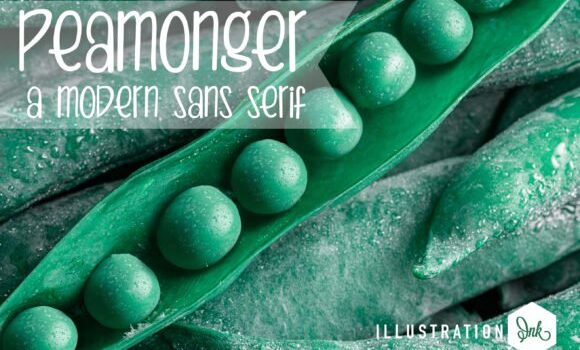
Peamonger Font – Free Download Introduction to Peamonger Font Peamonger is a chic, slim and sweet sans serif font. 📸 Preview Gallery 6 images 📌 Product Name Peamonger Font 👤 Author Illustration Ink 📂 Category Explore ⬇️ Download Peamonger Font